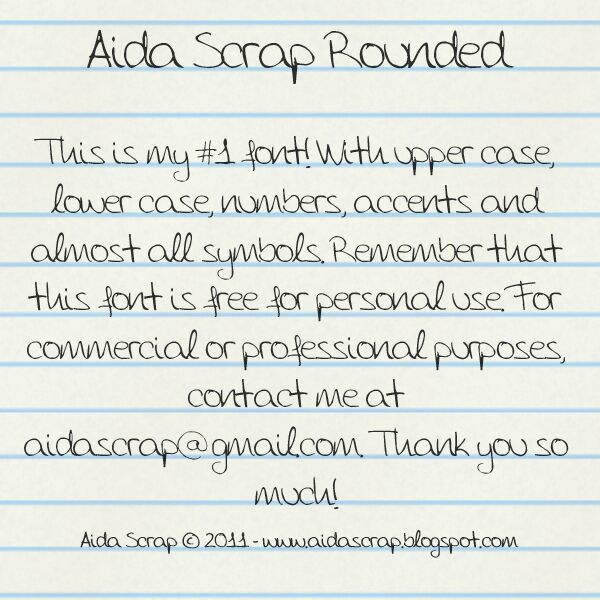
Aida Garmo - Scrap Rounded, credited to Aida Scrap, is a free handwritten font with loose, elongated lettering. Its strokes shift from hairline-thin to broad ink-like marks, and the letter heights vary noticeably. The uneven line has real speed.
Indie music posters and handmade food packaging draw on the same raw, quickly sketched quality, though each uses it for a different kind of informality. It also suits personal stationery and youth event graphics, especially for subjects tied to doodling, street art, or improvised performance.